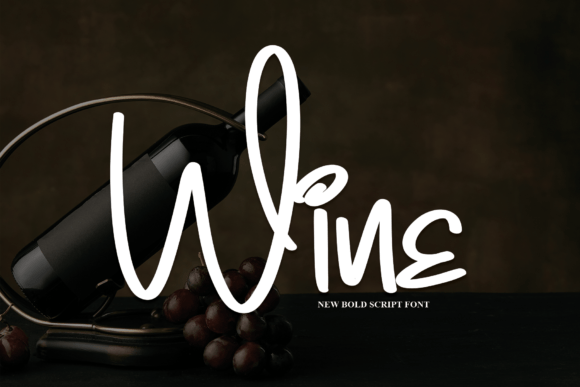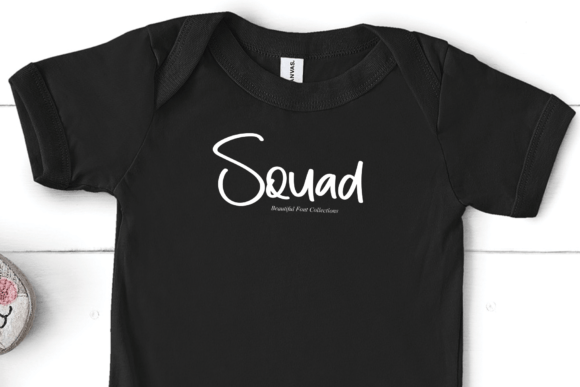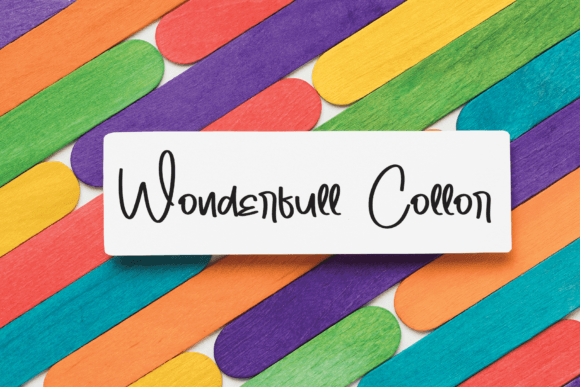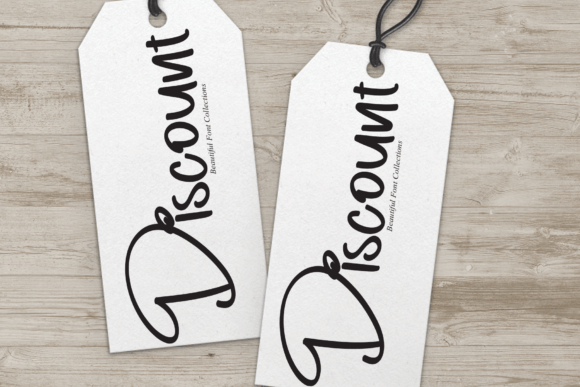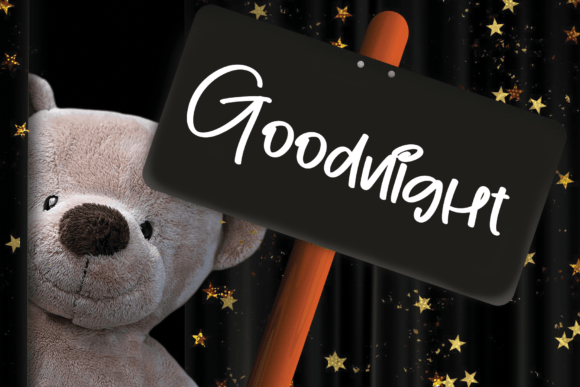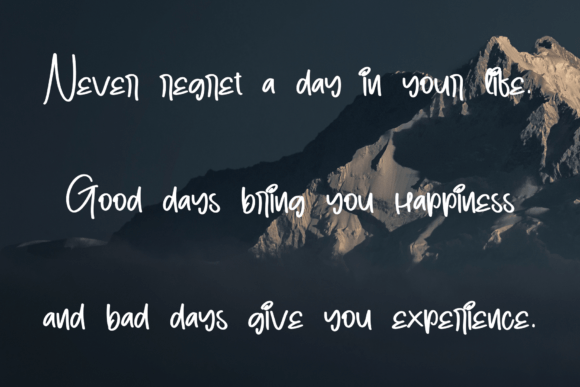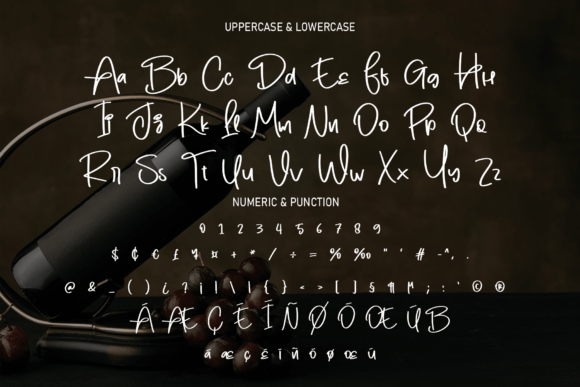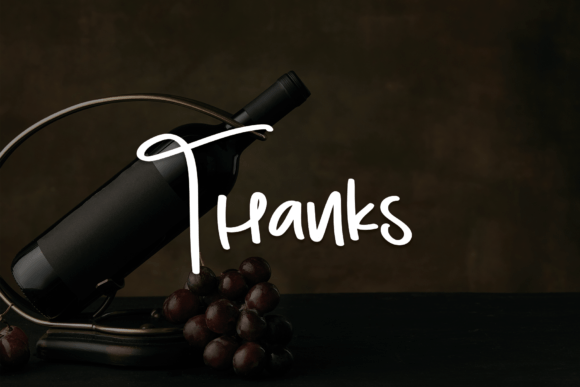
Wine Font
About Wine Font
Wine is a beautifully crafted handwritten font designed to provide you with an extraordinary and unique experience. Its elegant and expressive style makes it a perfect choice for a wide range of design projects. This versatile font is ideal for wall displays, wedding invitations, social media posts, logos, advertisements, product packaging, product designs, labels, photography, watermarks, invitations, stationery, and any project that benefits from a handwritten touch.
One of the key features of Wine is its ability to add a touch of sophistication and personalization to your designs. Its handwritten appearance brings a sense of warmth and authenticity, creating a connection with your audience. Whether you’re designing elegant wedding invitations, crafting engaging social media content, or developing a distinctive brand identity, Wine enhances the overall aesthetic with its graceful and approachable handwritten style.
The font’s versatility allows it to adapt seamlessly to various design contexts. Its flowing and organic letterforms add a sense of elegance and charm to your projects, making them visually appealing and captivating. By incorporating Wine into your designs, you infuse them with a sense of refinement and individuality, making your content stand out with a touch of timeless beauty.
Incorporating Wine into your creative projects not only adds a handwritten touch but also communicates your dedication to creating authentic and meaningful designs. Its adaptability makes it suitable for both formal and informal applications, giving you the freedom to experiment and create visually stunning compositions. By choosing Wine, you’re selecting a font that elevates your designs and brings a touch of sophistication to your creative endeavors.
So, whether you’re designing elegant invitations, producing captivating social media content, developing a unique brand identity, or working on any other creative project, let Wine be your font of choice. Its handwritten elegance enriches your designs, infusing them with a sense of grace and sophistication. Embrace the timeless beauty of Wine and watch your projects come to life with a touch of refined elegance and personal charm.